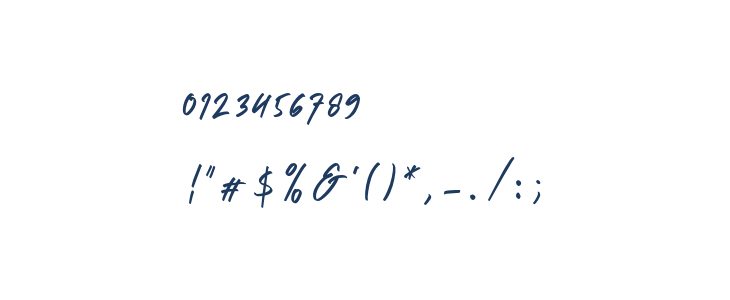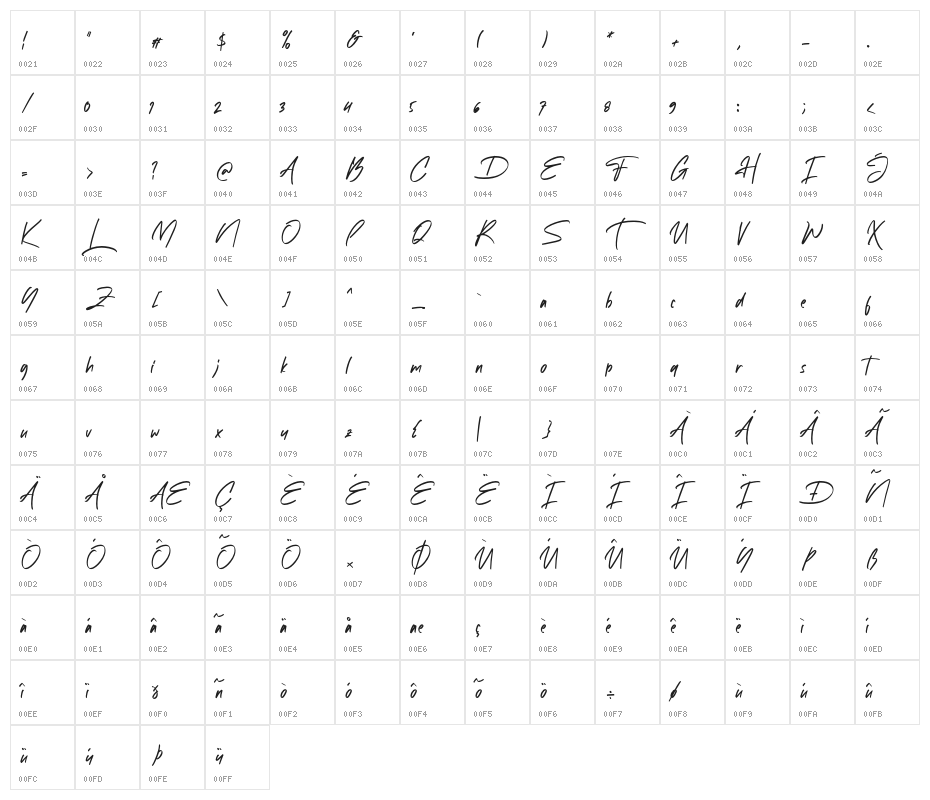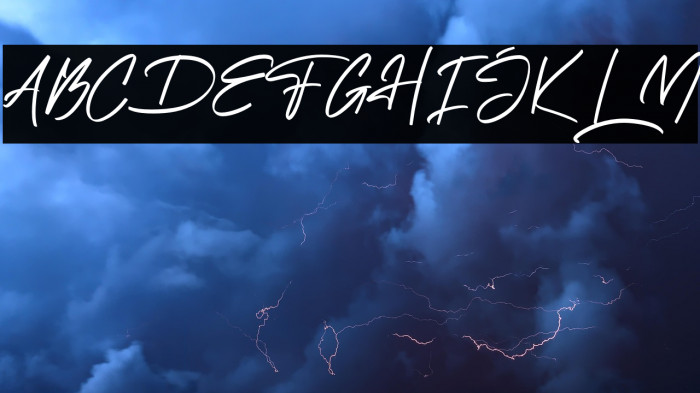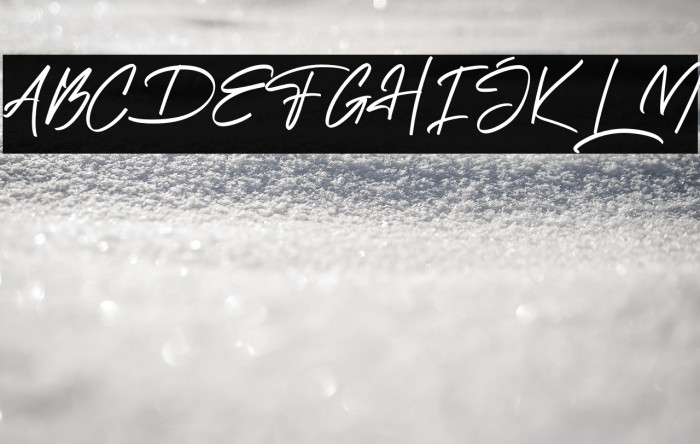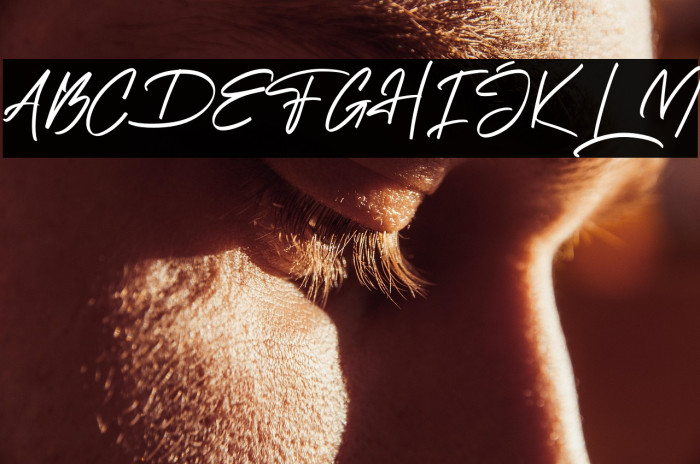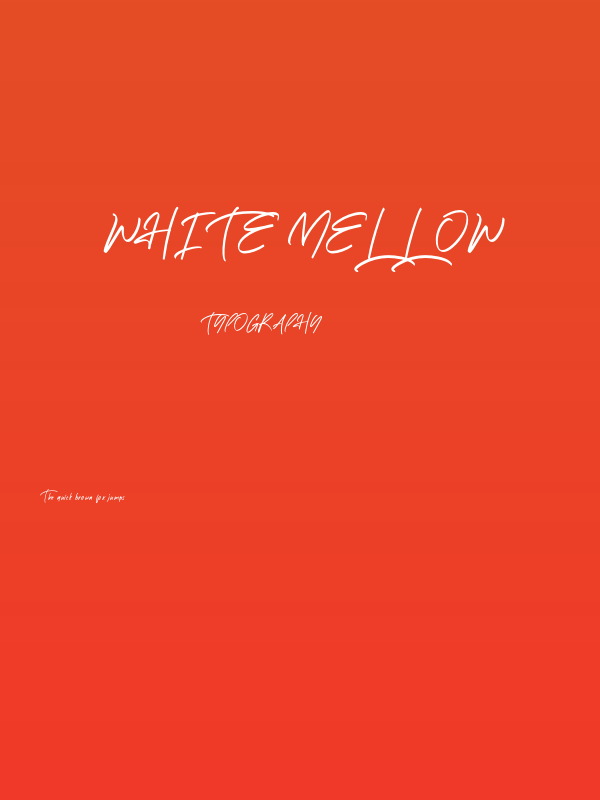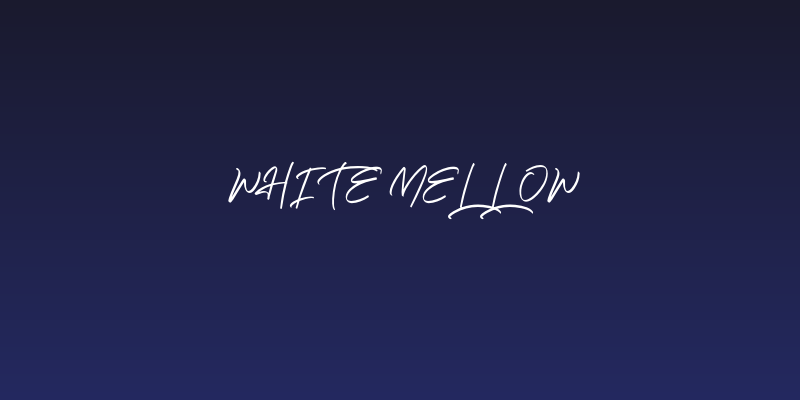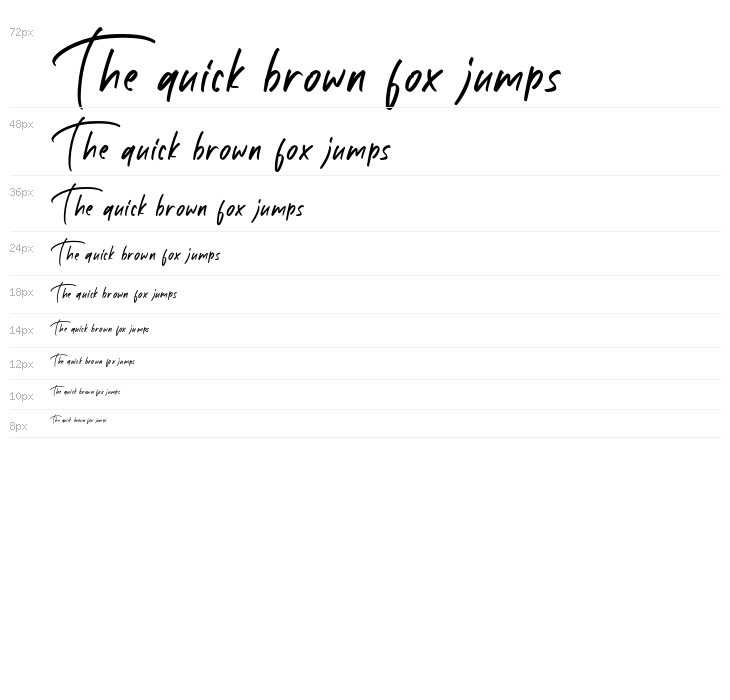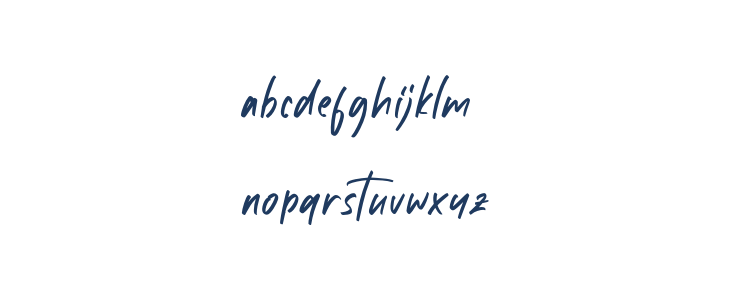
White Mellow Font
White Mellow Description
This font exudes a lively and dynamic energy with its handwritten style, characterized by fluid and slightly irregular strokes that mimic natural handwriting. The uppercase letters are bold and expressive, with unique flourishes that add a touch of personality. The lowercase letters maintain a consistent flow, enhancing readability while preserving the font's artistic flair. Numbers and special characters are crafted with the same attention to detail, ensuring a cohesive look across all text elements. This font is perfect for projects that require a personal touch, such as invitations, greeting cards, or branding materials that aim to convey warmth and creativity.